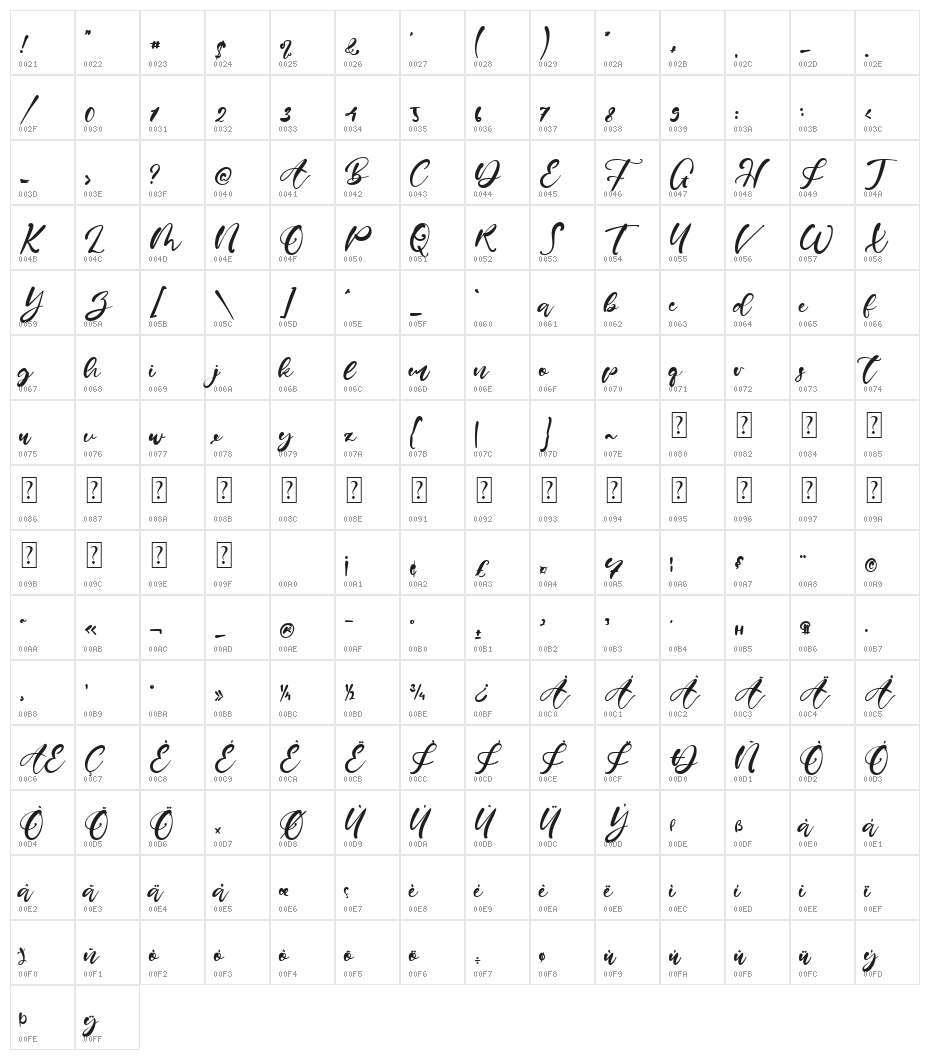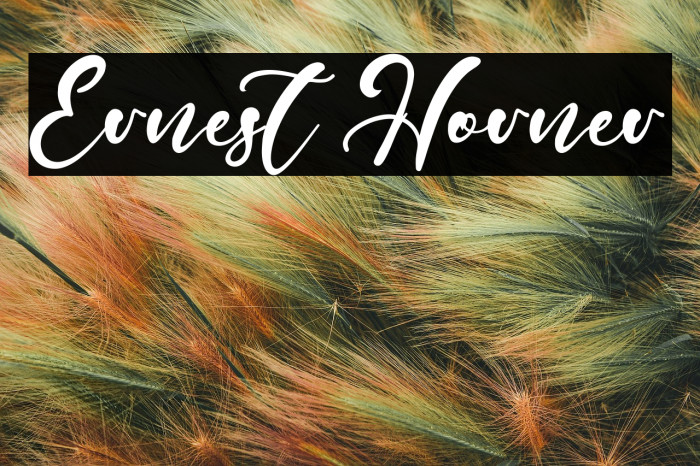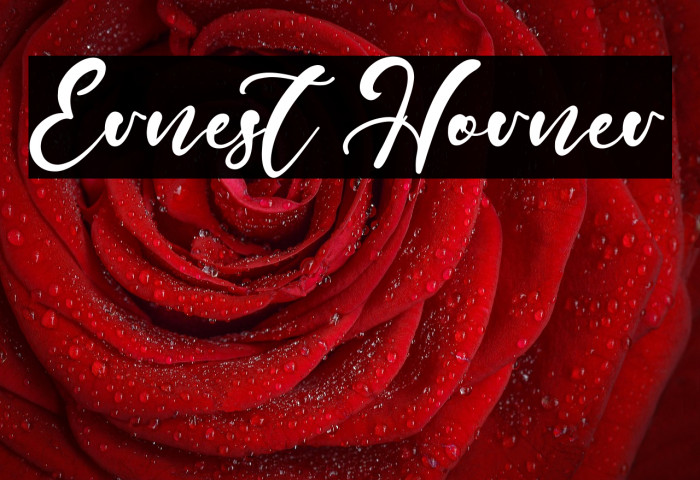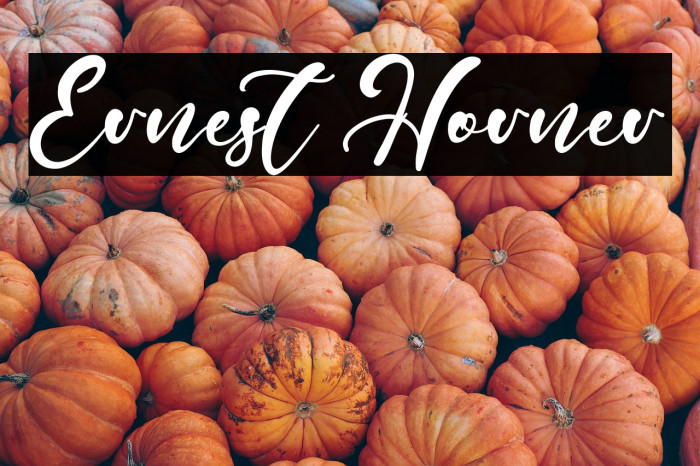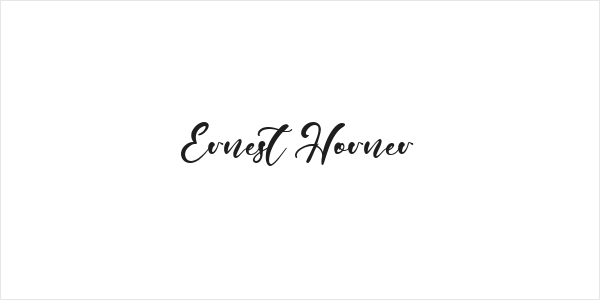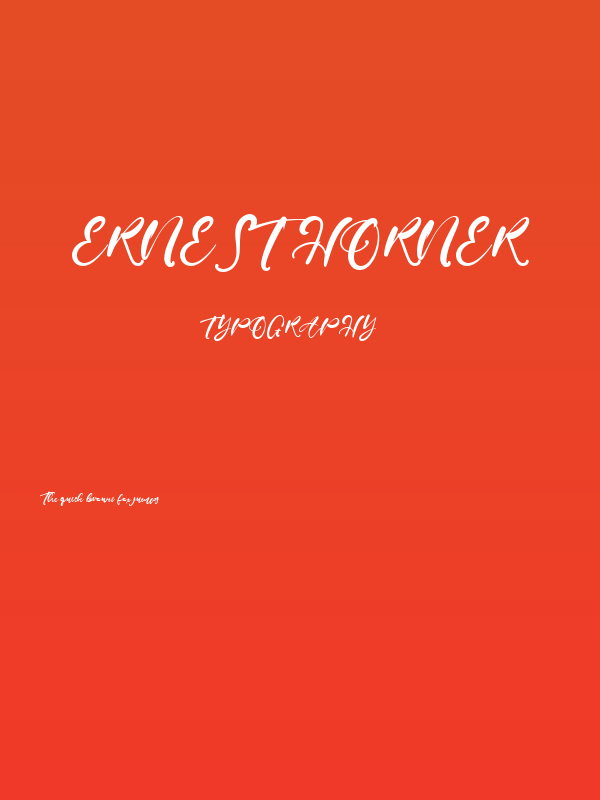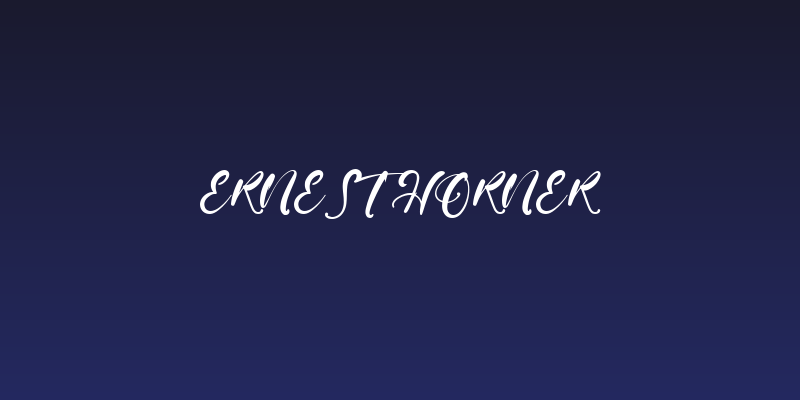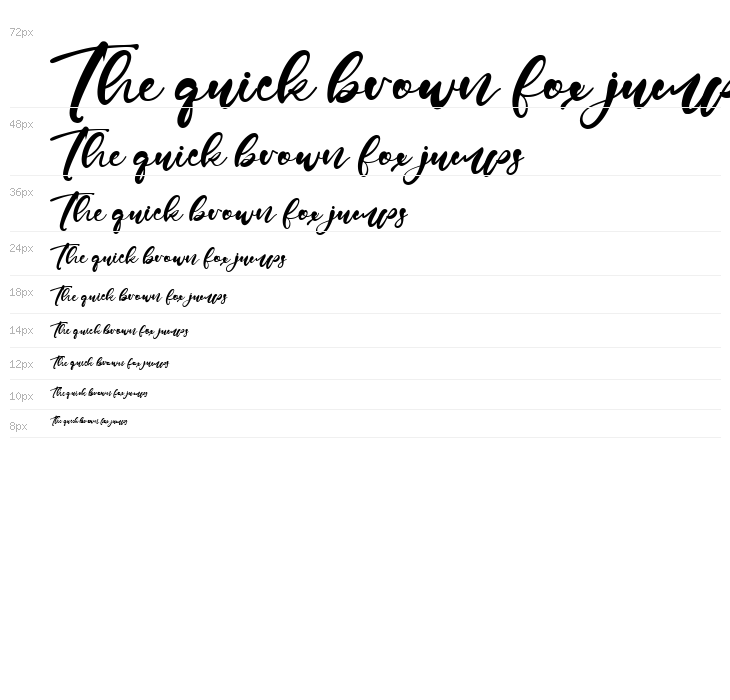
Ernest Horner Font
Ernest Horner Description
A flowing, cursive script font with a handwritten appearance, featuring smooth, connected strokes and a playful, elegant style.
| Proposed Projects | Invitations, greeting cards, branding, and decorative text. |